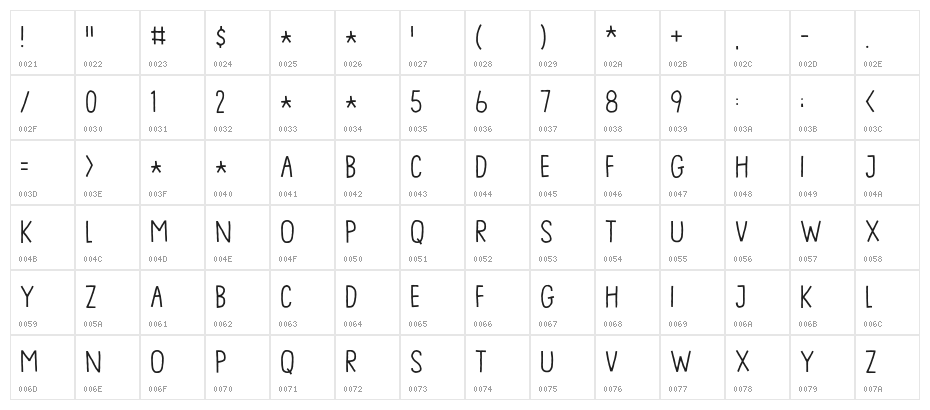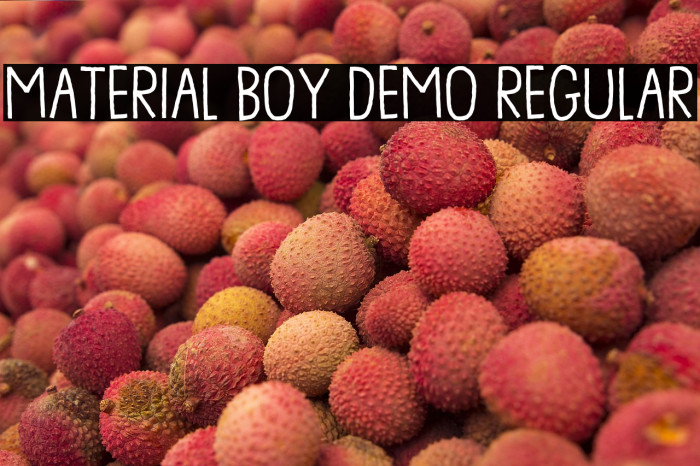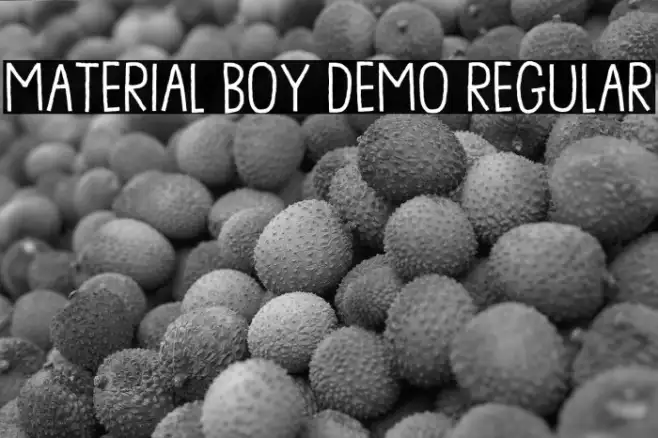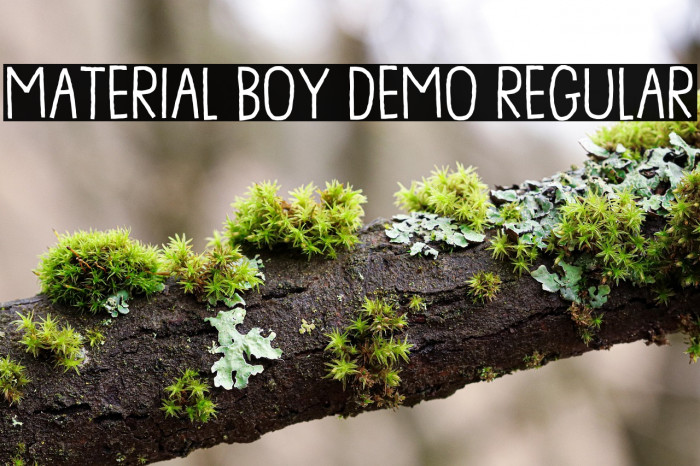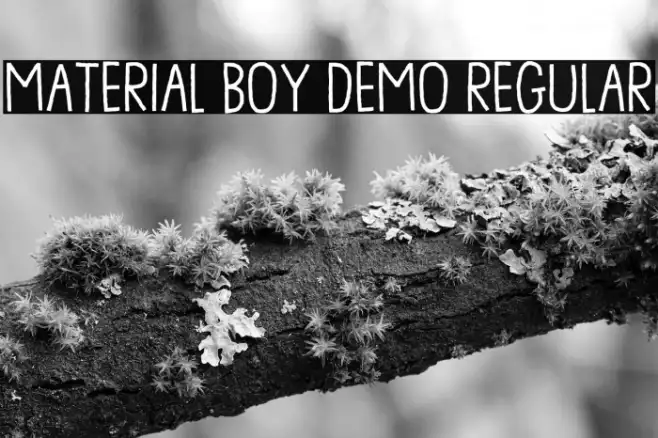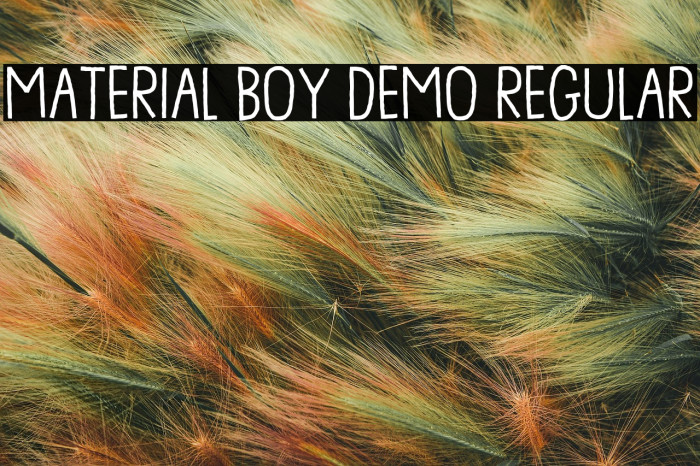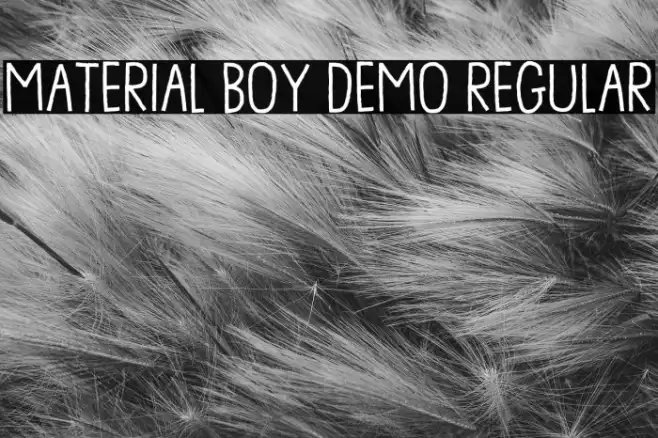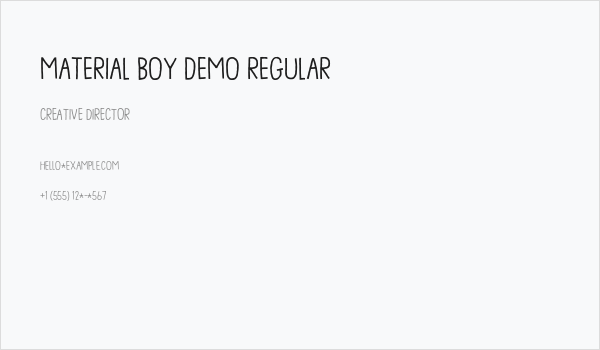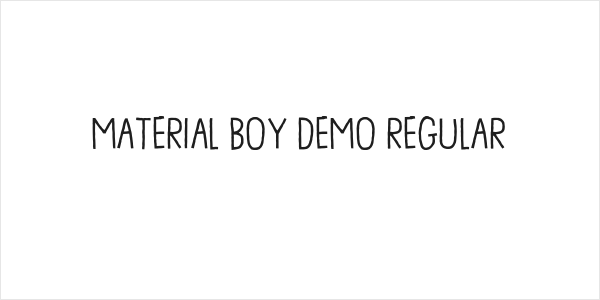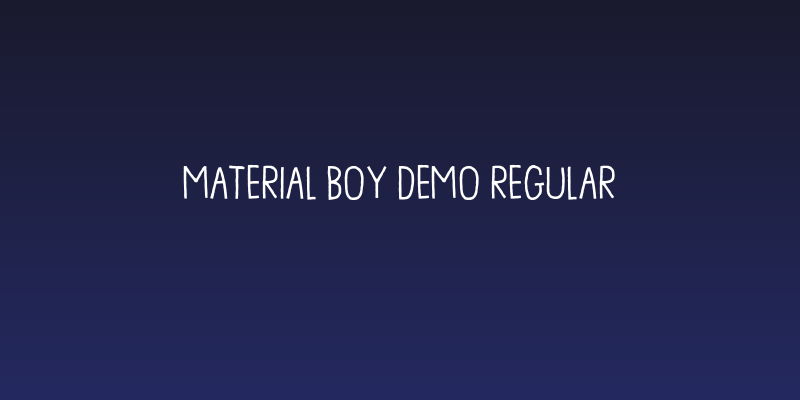
Material Boy DEMO Regular Font
Material Boy DEMO Regular Description
This font features a playful, hand-drawn style with a casual and approachable appearance. The letters are slightly irregular, giving it a whimsical and informal feel. The strokes are consistent in thickness, providing a uniform look across all characters. The uppercase and lowercase letters maintain a similar height, enhancing readability. The numbers and special characters are designed to match the overall style, ensuring cohesion throughout. This font is perfect for projects that require a personal touch or a creative flair.
| Proposed Projects | Ideal for greeting cards, children's books, creative posters, and DIY projects. |